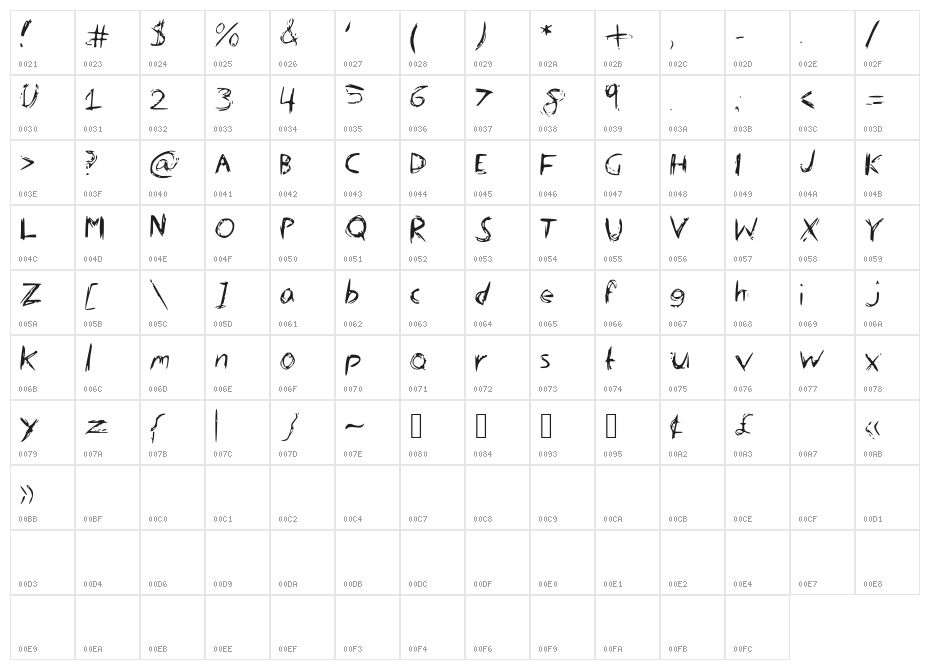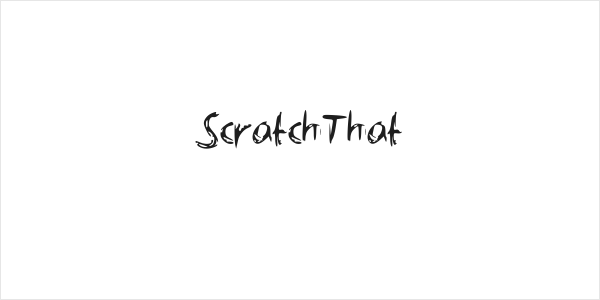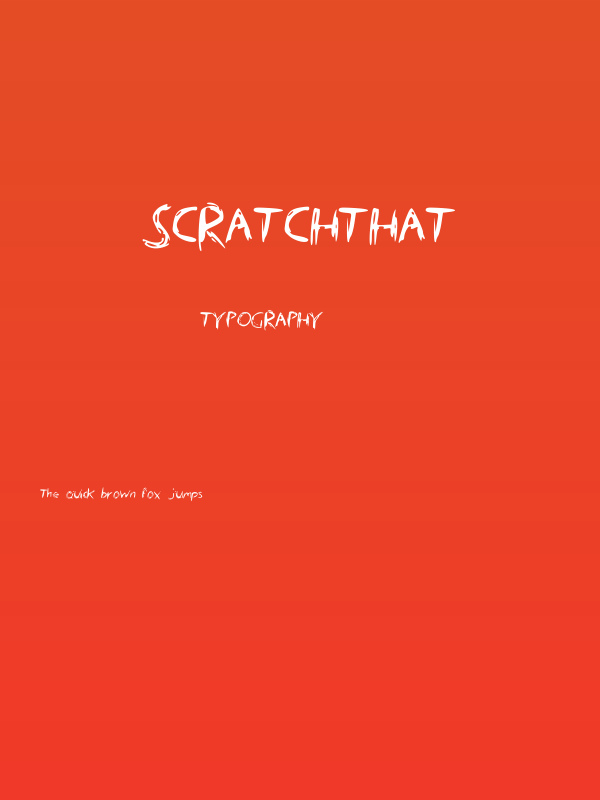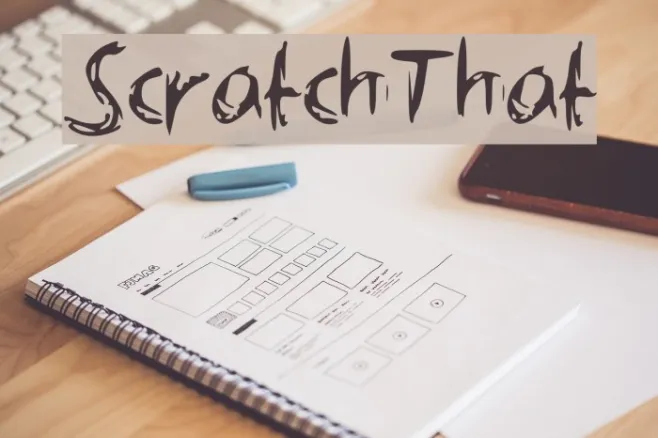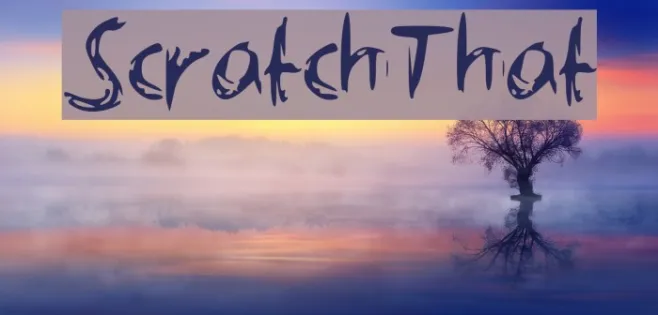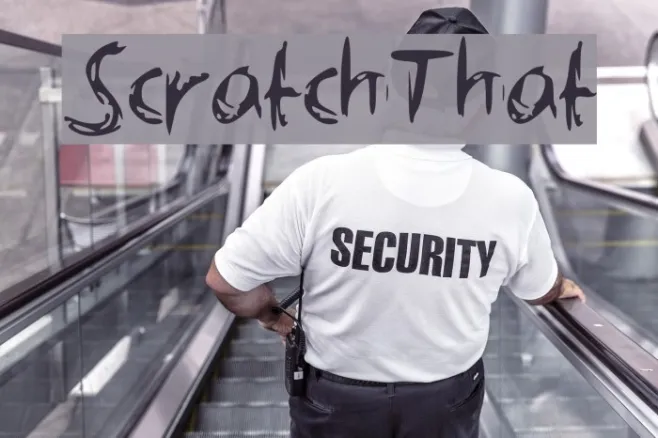
ScratchThat Font
ScratchThat Description
This font features a dynamic and edgy design with a distressed, grunge-like appearance. The characters are bold and irregular, with jagged edges and a hand-drawn feel that gives them a raw, energetic vibe. The uppercase and lowercase letters maintain a consistent style, with varying thickness in strokes that add to the chaotic aesthetic. Numbers and special characters follow the same design principles, ensuring a cohesive look across all glyphs. This font is ideal for projects that require a bold statement or an urban, rebellious touch.
| Overall Style | Modern, Grunge |
| Proposed Projects | Perfect for album covers, streetwear branding, posters, and edgy graphic designs. |